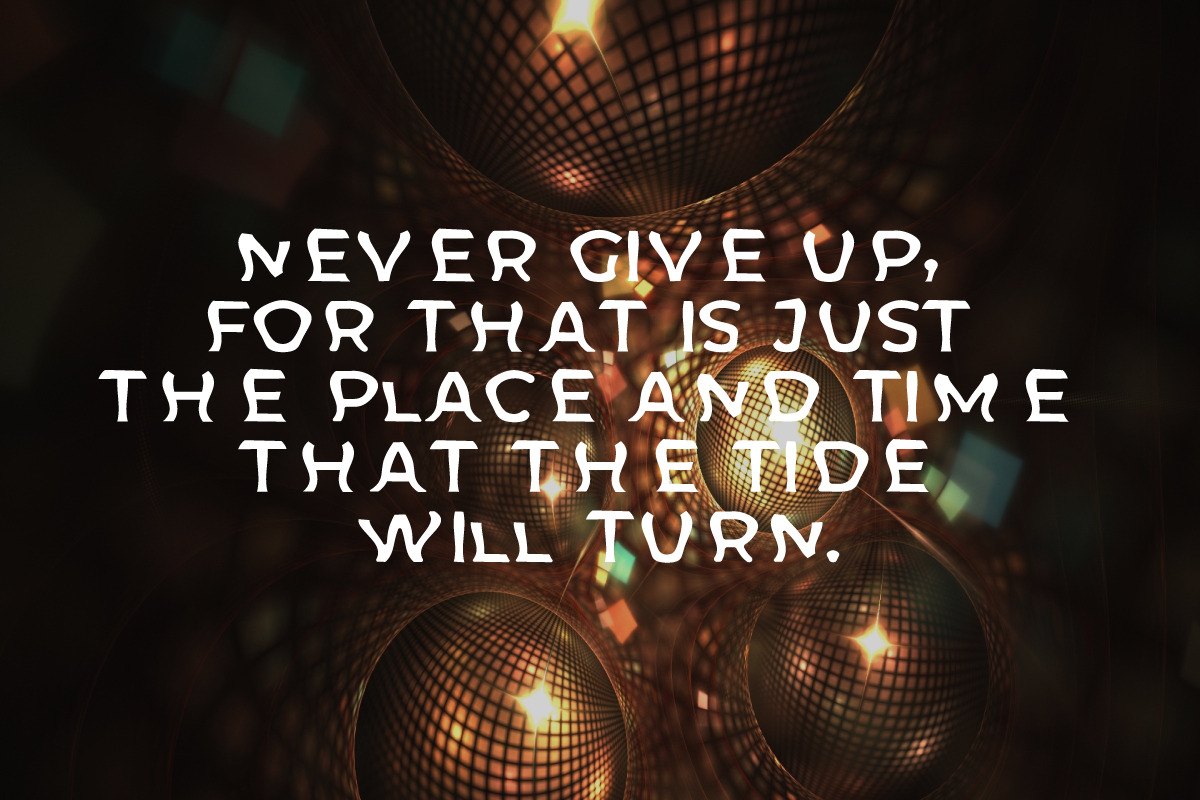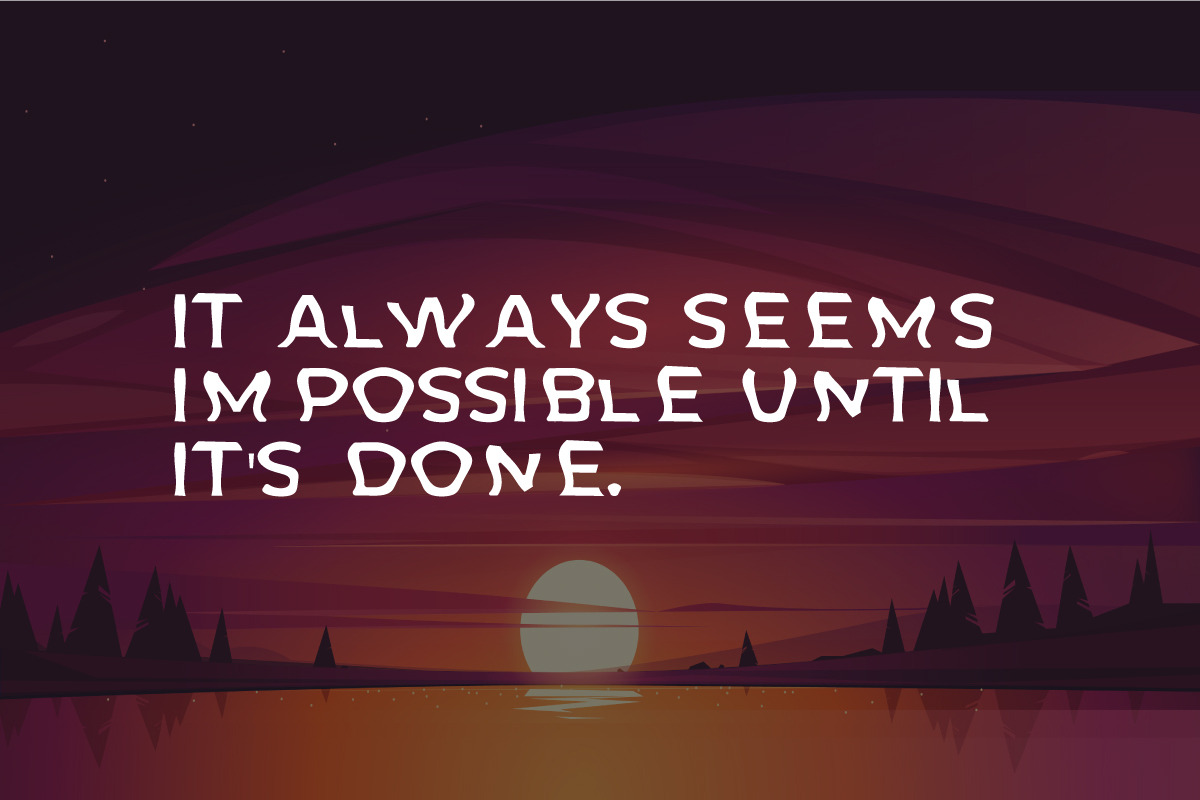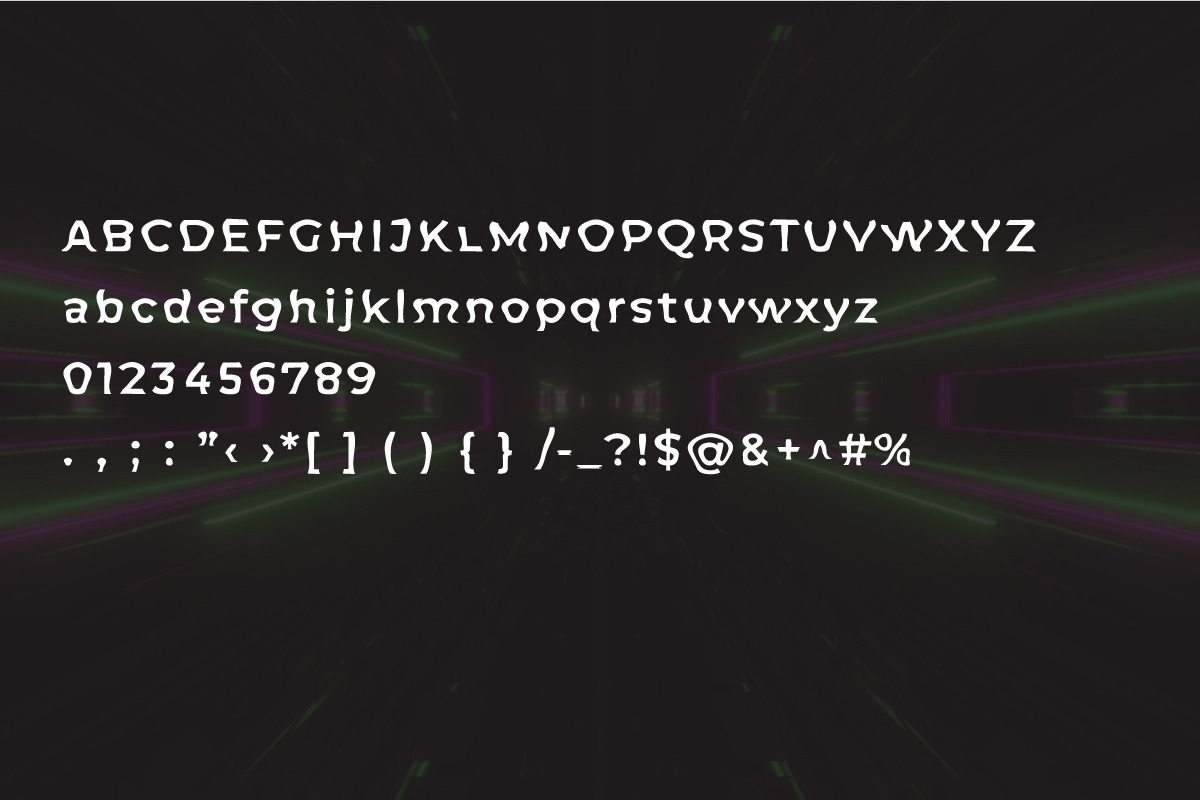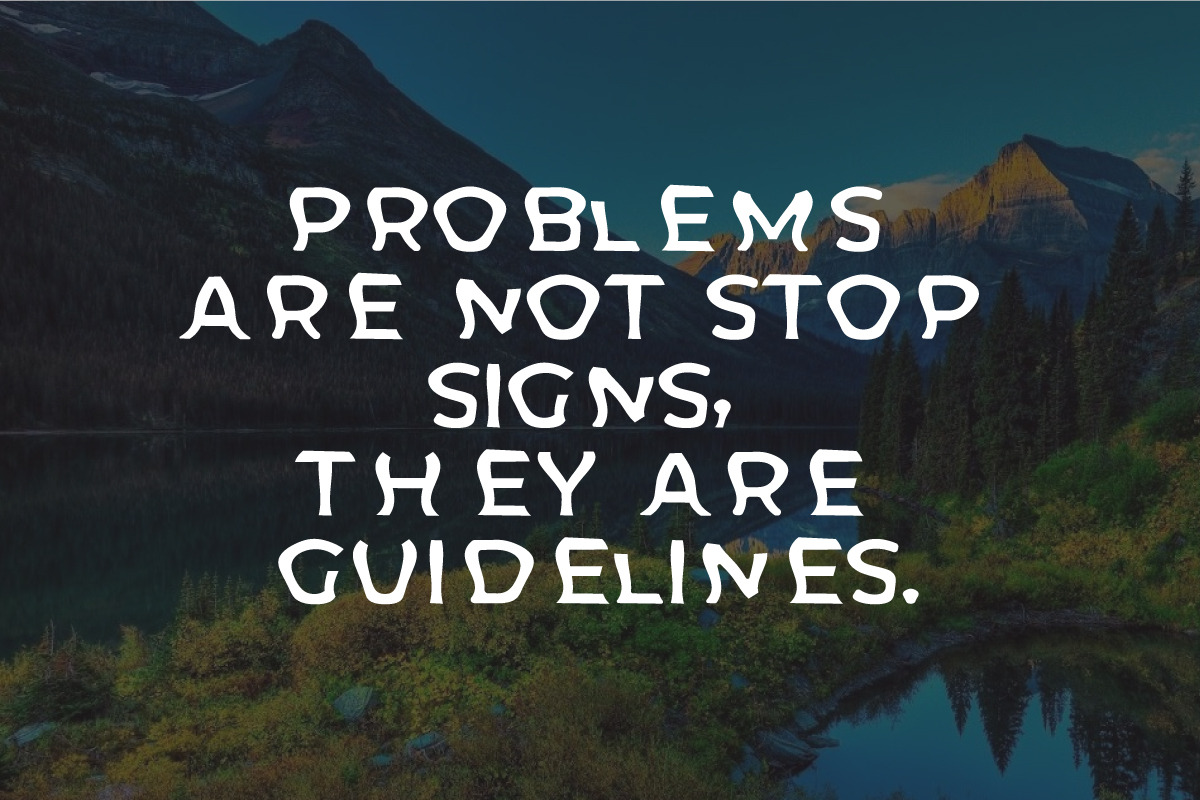
TRIOMATRIC
TRIOMATRIC is a Modern retro, bold, & playful display font. This font is Looking Very Great on headlines, Packaging, Minimal Design, Poster, magazines, logos, street vibes, Sportwear,Textile Clothing branding and so much more